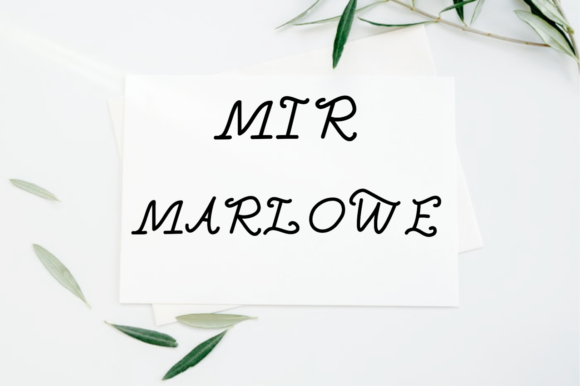
**Introducing Mir Marlowe: The Quintessential Script Font for Handwritten Charm**
Embark on a captivating journey into the realm of exquisite typography with Mir Marlowe, a script font that embodies the allure of handwritten elegance. Meticulously crafted by the artistry of PitchaType, this extraordinary font invites you to weave tales of love, passion, and creativity through the power of its enchanting strokes.
Mir Marlowe's essence lies in its captivating versatility, gracefully adapting to a myriad of design endeavors. Whether you seek to craft heartfelt love letters, extend warm invitations, or create captivating social media posts, this font serves as the perfect instrument to express your emotions with unparalleled grace.
Immerse yourself in the whimsical world of Mir Marlowe, where each character dances across the page with the fluidity of a seasoned calligrapher's pen. Its charming imperfections and subtle variations mimic the natural flow of human handwriting, evoking a sense of intimacy and authenticity in every word you write.
Unleash your creativity with Mir Marlowe, a font that transcends the boundaries of ordinary typography. Its enchanting style seamlessly complements a wide range of design aesthetics, from vintage-inspired invitations to modern branding materials. Let your imagination soar as you explore the endless possibilities that await with this remarkable font.
**Why Choose Mir Marlowe?**
- **Captivating Versatility:** Mir Marlowe effortlessly adapts to a myriad of design needs, whether you're crafting heartfelt letters, enchanting invitations, or captivating social media posts.
- **Handwritten Charm:** Experience the allure of handwritten elegance with every character, meticulously designed to emulate the natural flow and imperfections of human penmanship.
- **Emotional Resonance:** Convey your sentiments with authenticity through the heartfelt strokes of Mir Marlowe, a font that speaks volumes about love, passion, and creativity.
- **Design Versatility:** Unleash your design potential with Mir Marlowe, seamlessly complementing a wide range of design aesthetics, from classic invitations to modern branding materials.
- **Effortless Elegance:** Elevate your designs with the effortless grace of Mir Marlowe, a font that adds a touch of sophistication and refinement to every project.